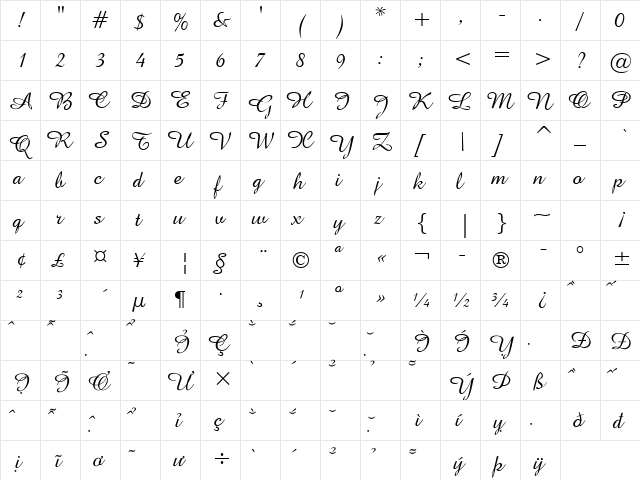
HP-Amazone Regular
Design Context for HP-Amazone Typeface
HP-Amazone takes a measured approach to typography — its balanced proportions and neutral character make it a reliable workhorse for both digital and print work.